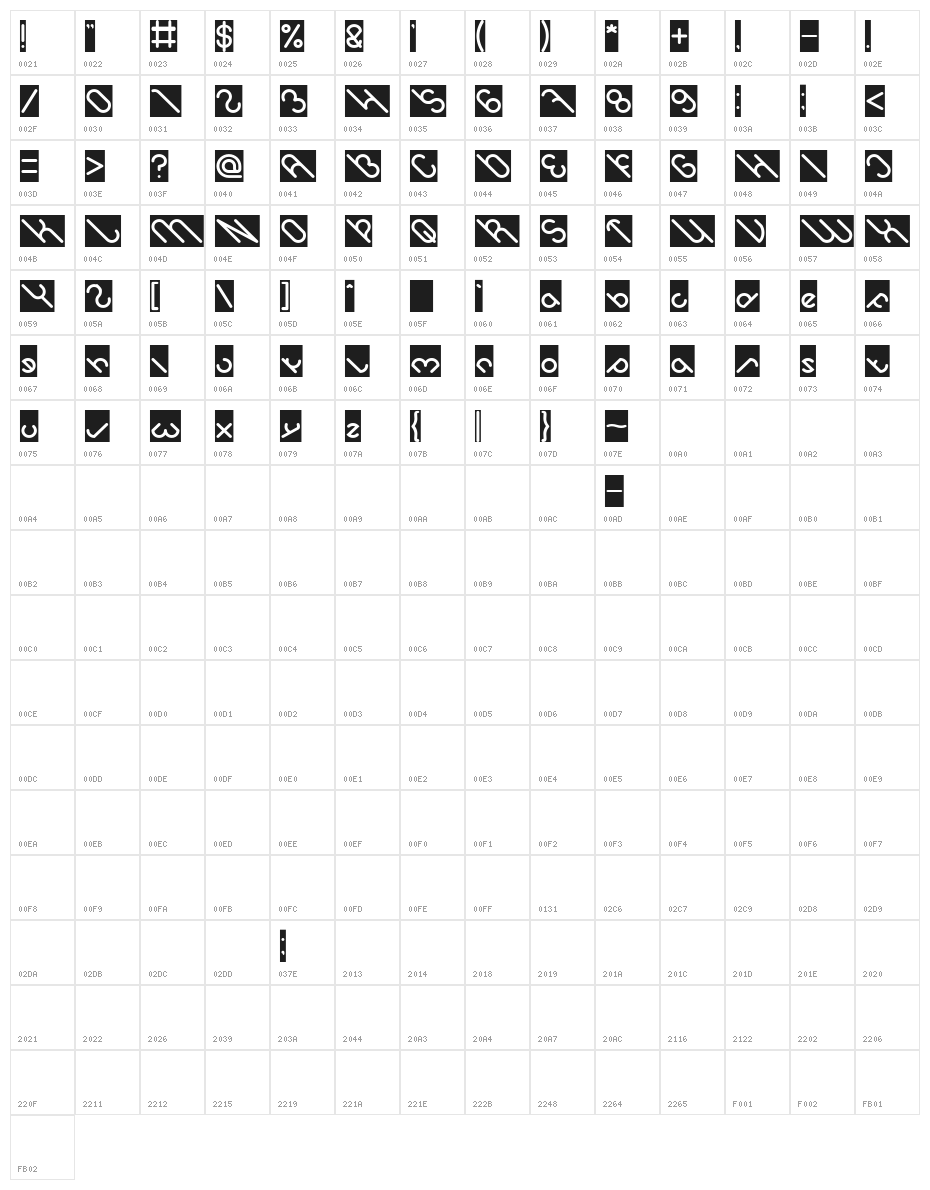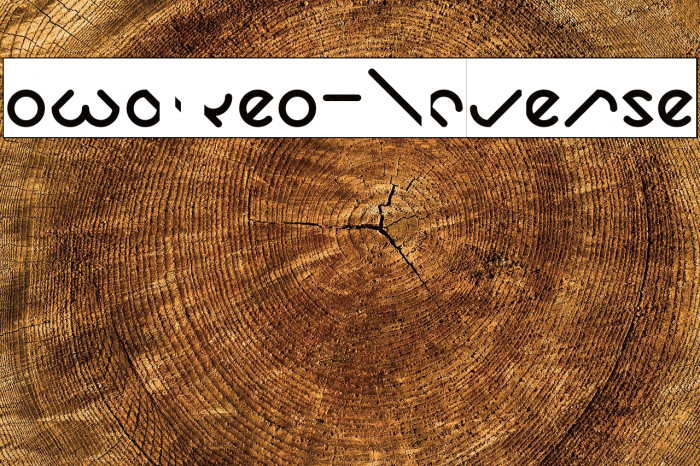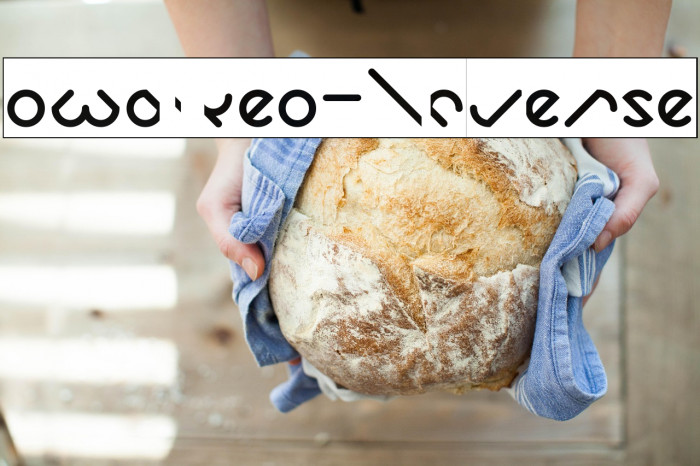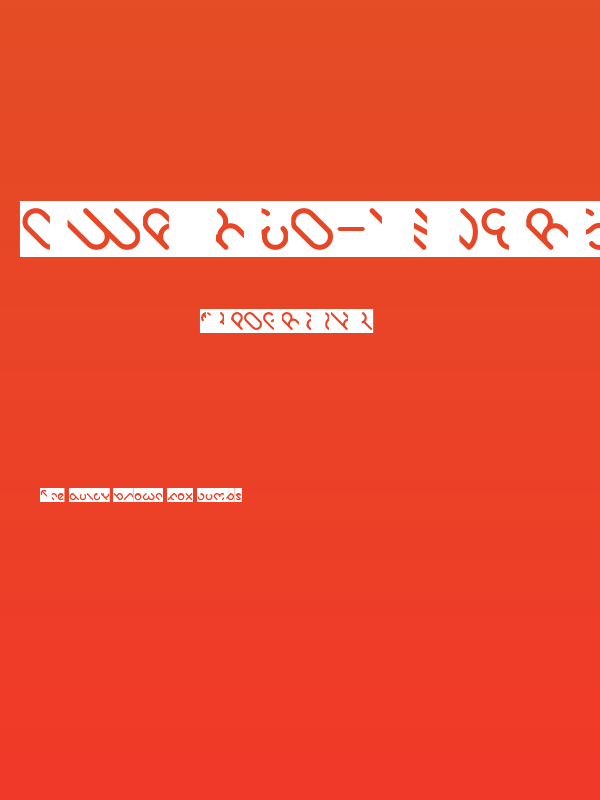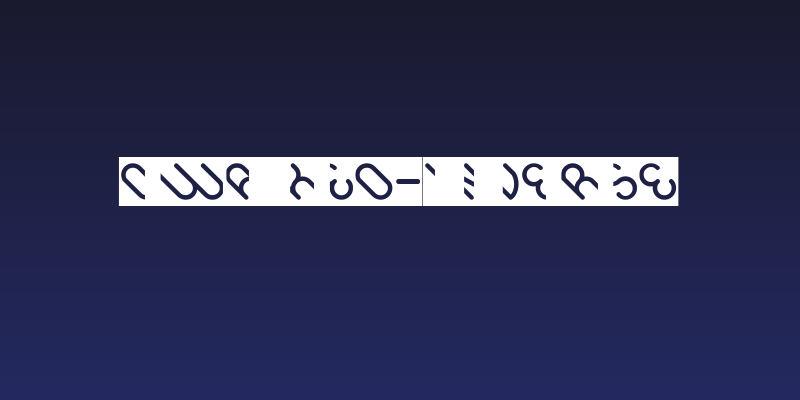
owaikeo-Inverse Font
owaikeo-Inverse Description
This font features a unique and modern design with a futuristic twist. The characters are crafted with a consistent slant, giving them a dynamic and forward-moving appearance. The strokes are smooth and rounded, creating a sense of fluidity and motion. Each letter is distinct, yet they all share a cohesive style that makes the font easily recognizable. The numbers and special characters maintain the same stylistic elements, ensuring uniformity across all glyphs. This font's innovative design makes it stand out, offering a fresh take on traditional letterforms.
CategoriesFuturistic
BoldNo
ItalicYes
WidthNormal
Character SpacingMonospaced
ContrastLow
Overall StyleFuturistic
Use CaseLogos, Headlines, Posters
Proposed ProjectsIdeal for tech branding, sci-fi themed projects, modern art displays, and innovative product packaging.